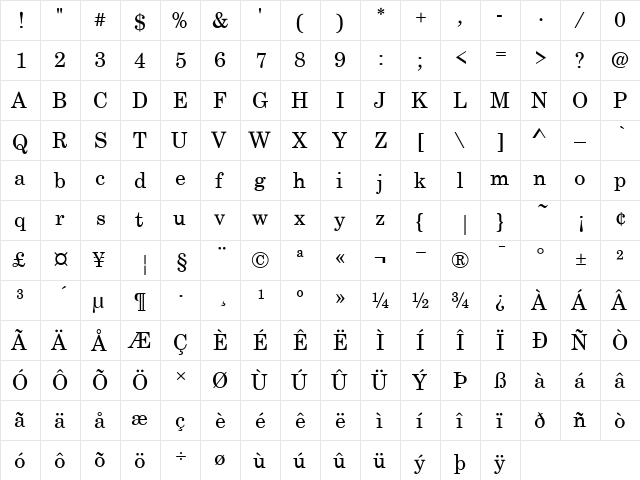
Century Schoolbook T Regular
| Foundry | by URW |
Design Context for Century Schoolbook T Typeface
Century Schoolbook T offers clean, dependable letterforms without strong stylistic allegiance, making it a practical choice for designers who need flexibility.
Pro Tip: Use Century Schoolbook T in both headline and body roles to test its range before committing to a single application.